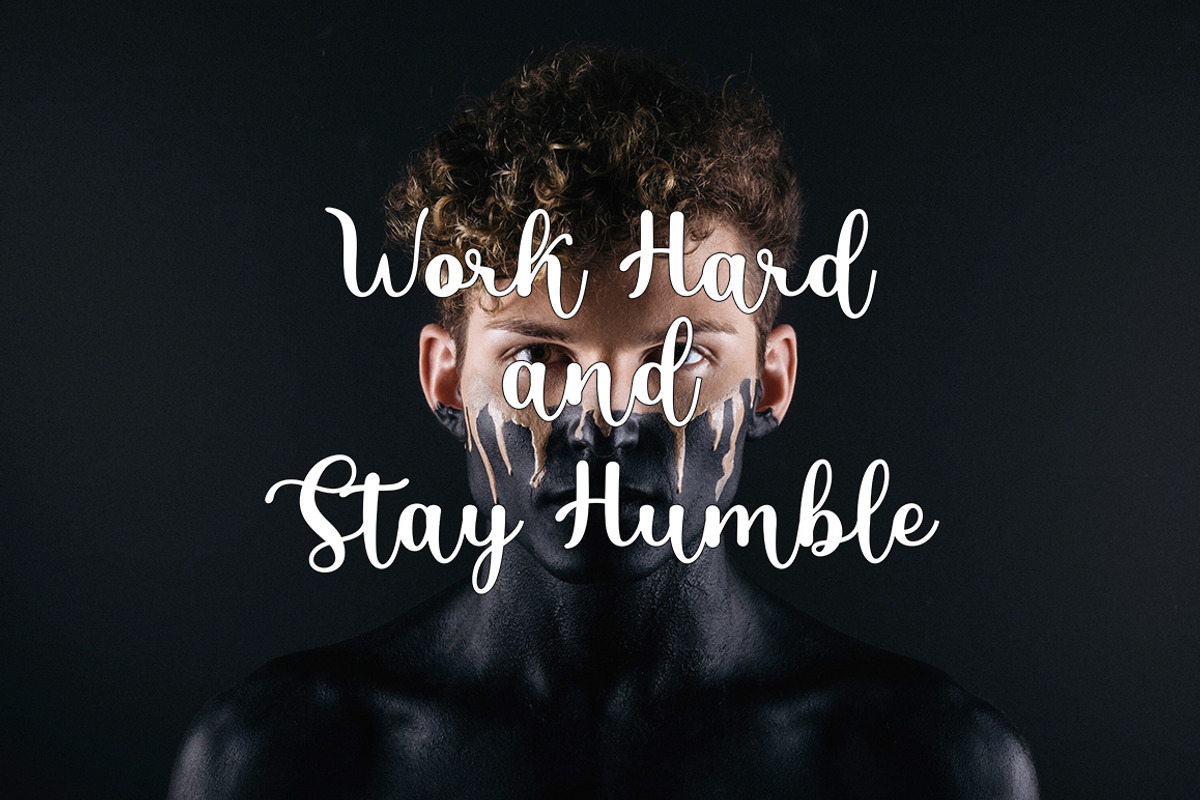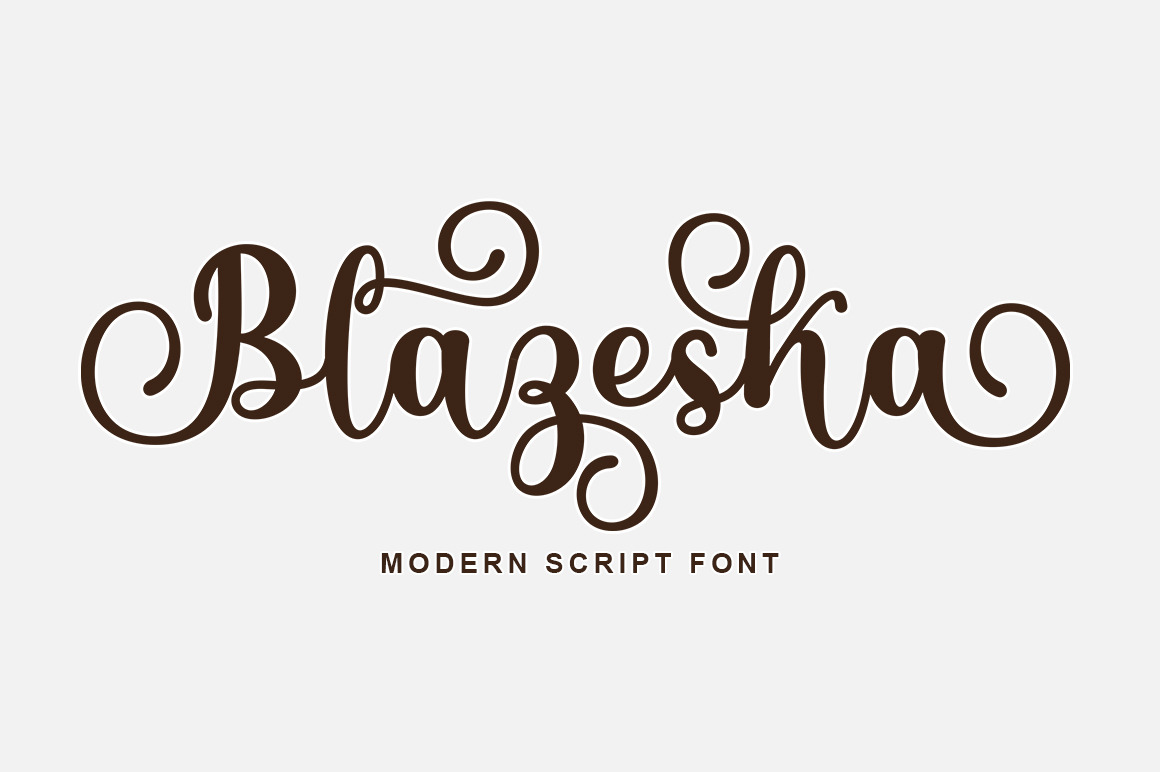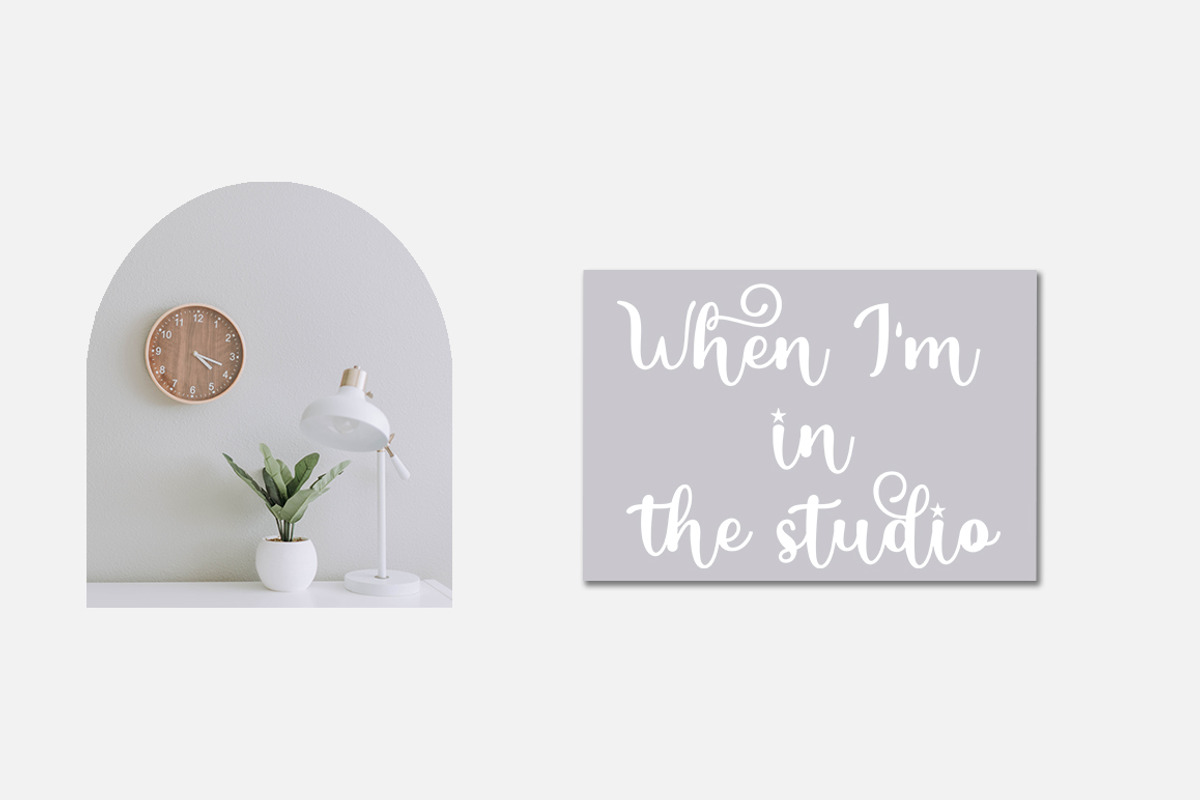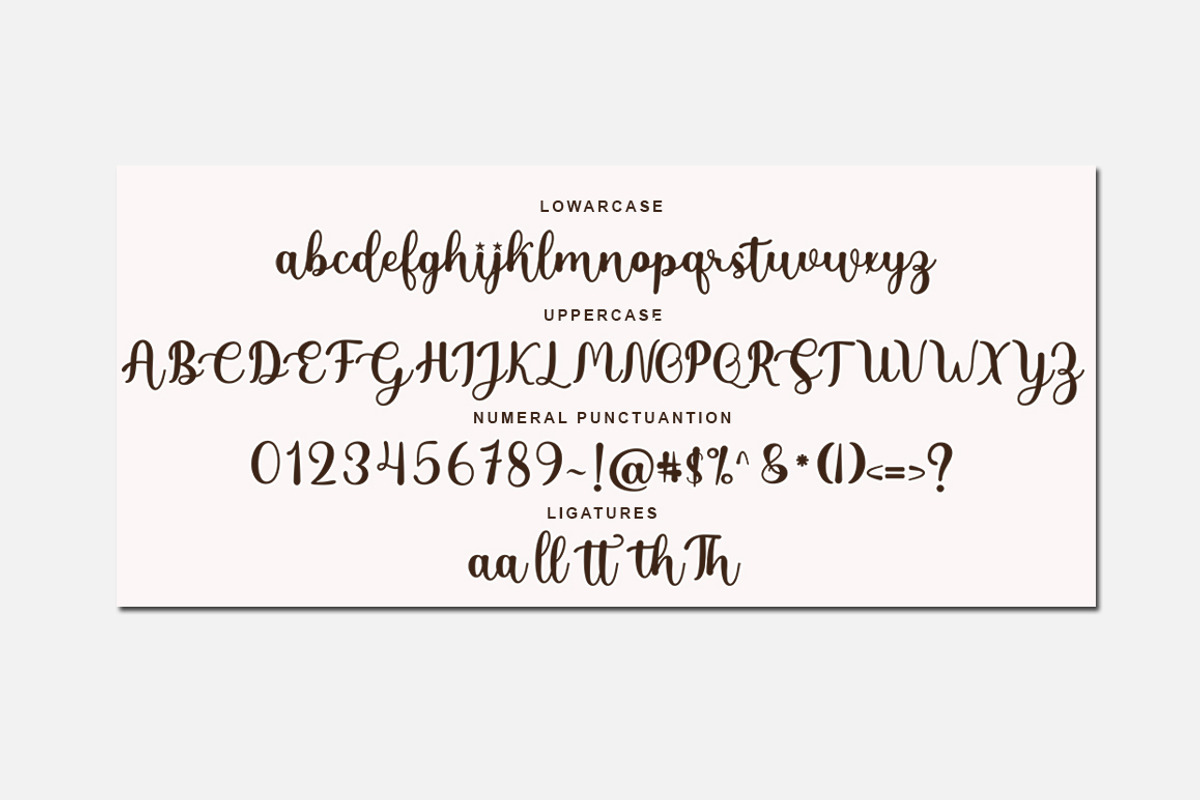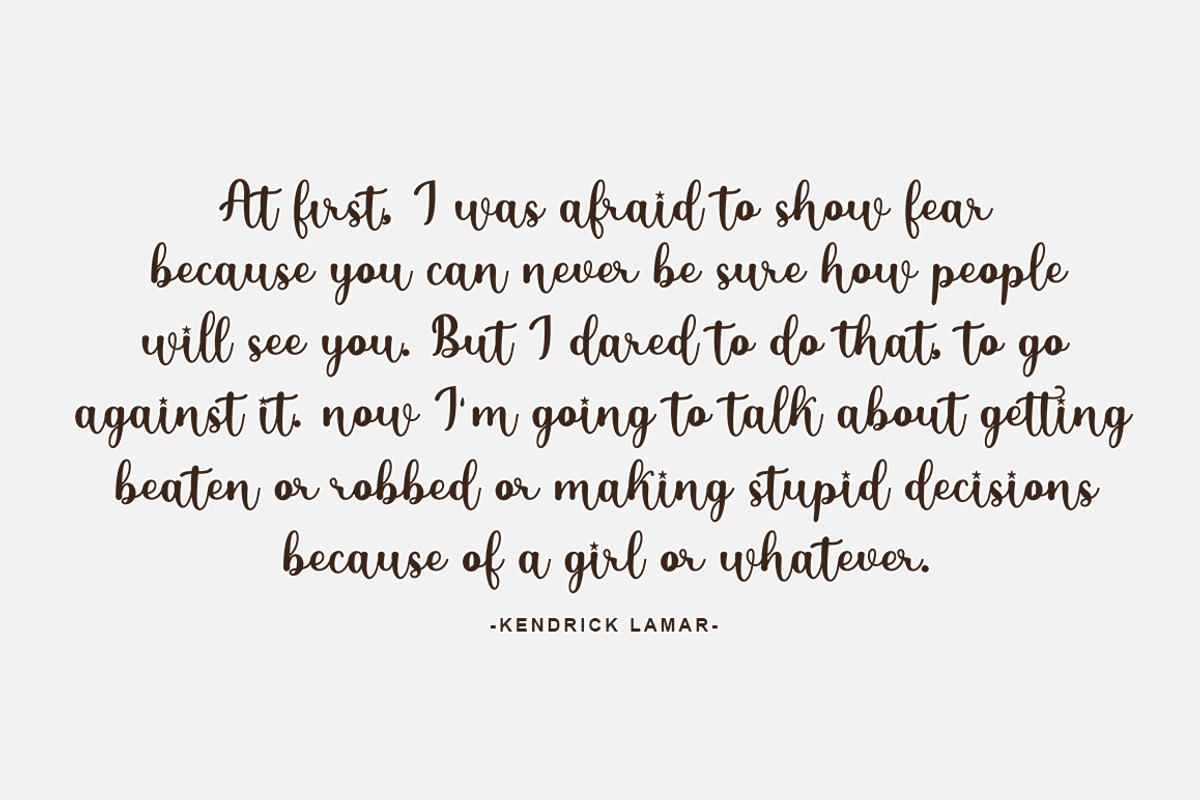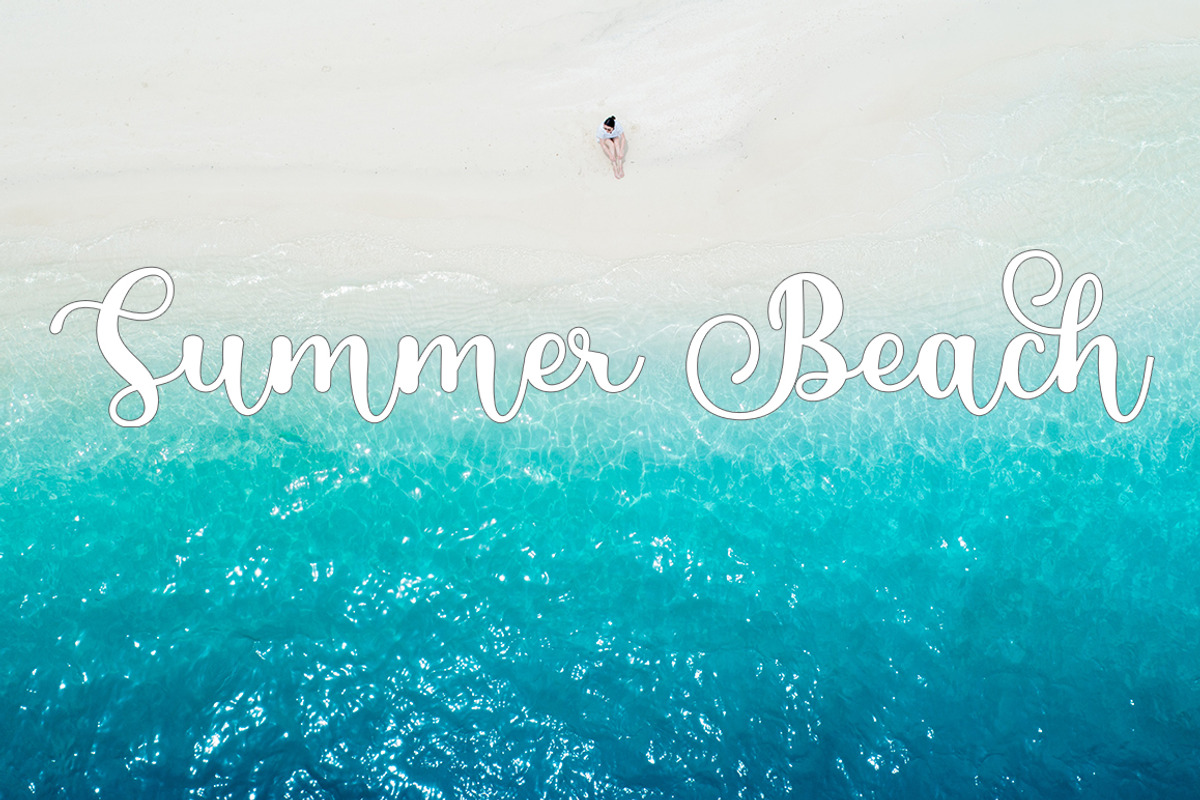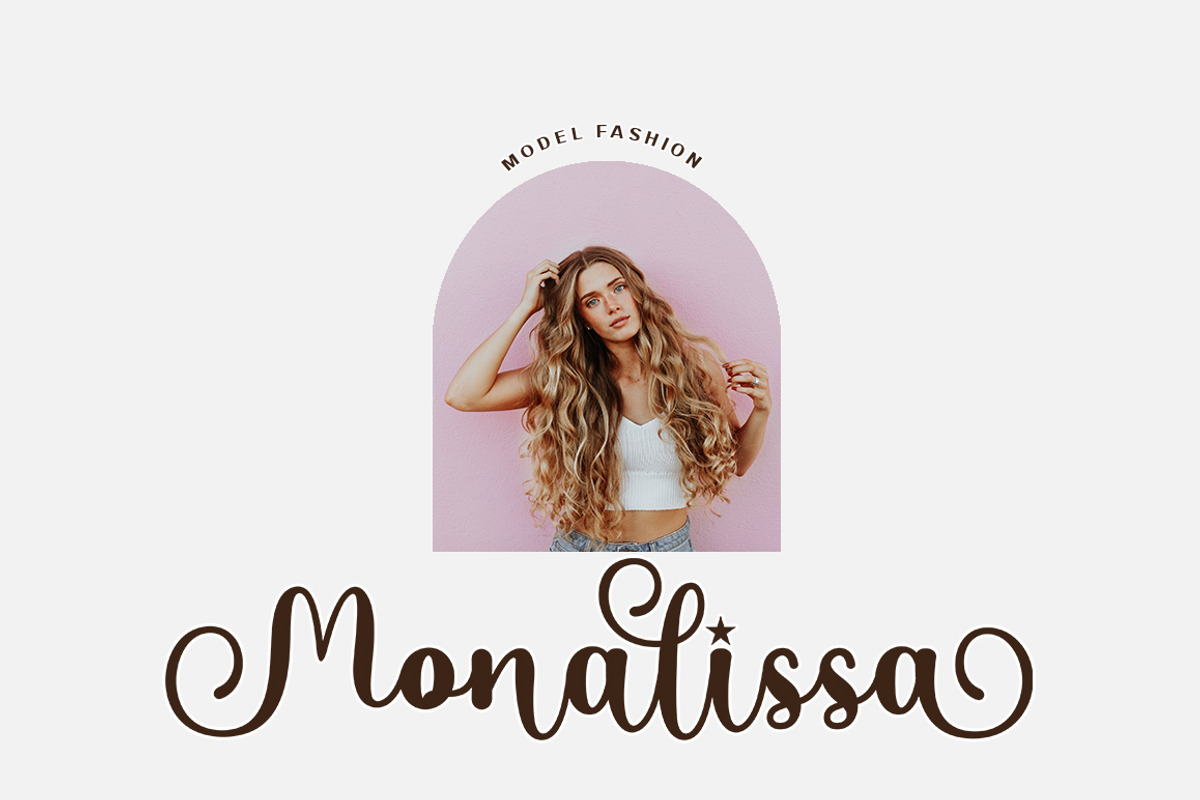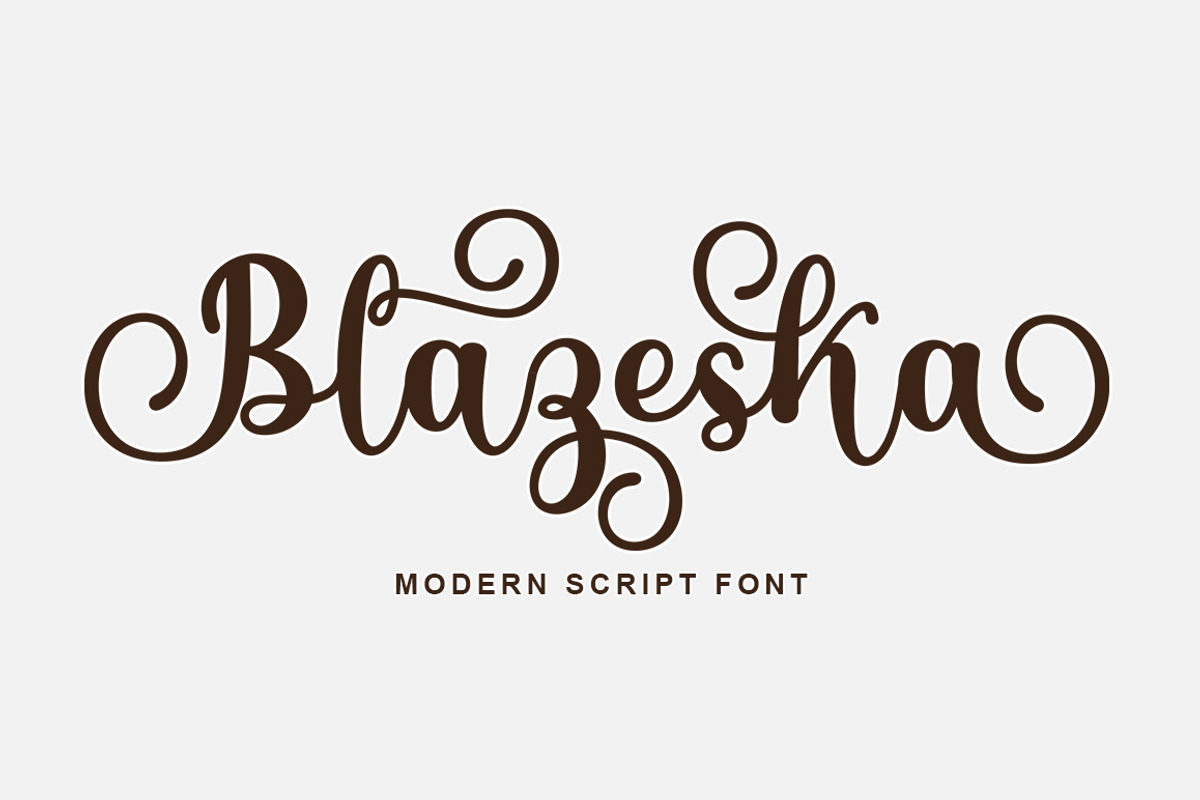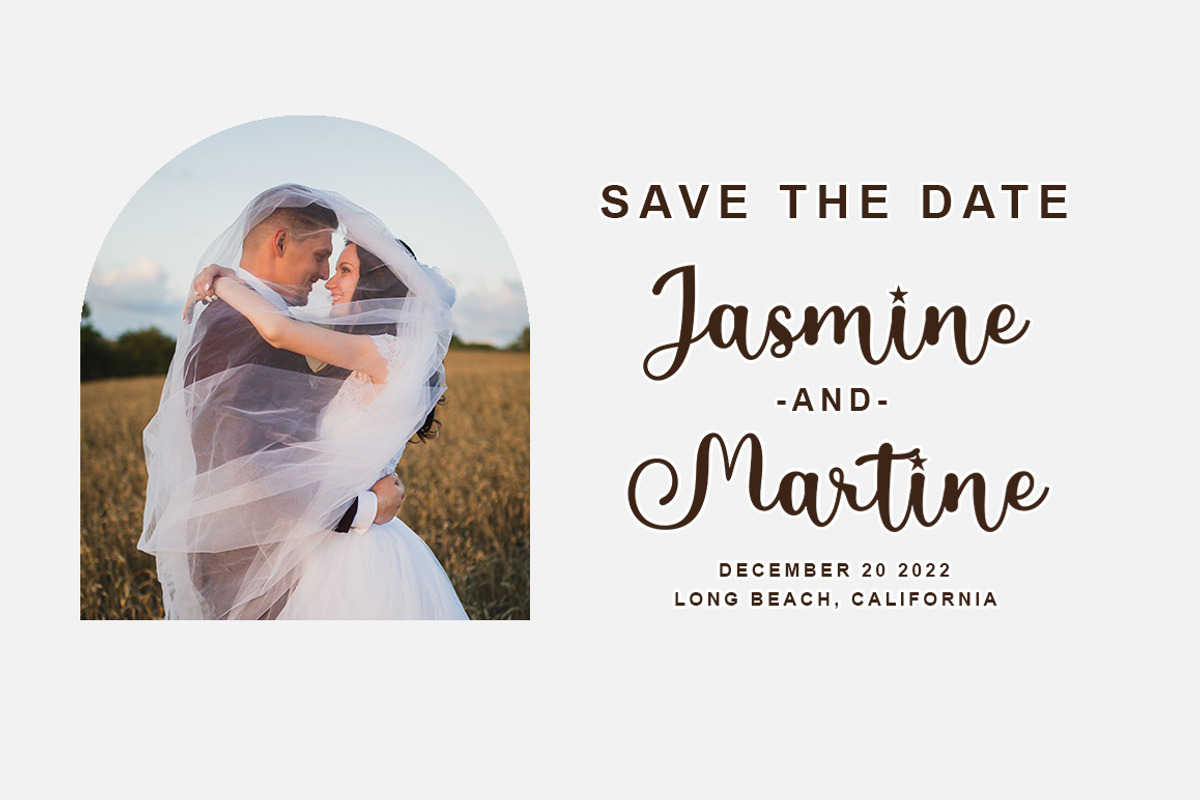
Blazeska 3 Elegant Font
Blazeska is a script type family of four fonts. It is inspired by Elegant Fonts and has a soft and friendly look Blazeska can be used for branding, packaging and anywhere else you need a script font that is readable and smooth. Blazeska has many ties, strokes and alternate characters that will make your designs unique and beautiful.